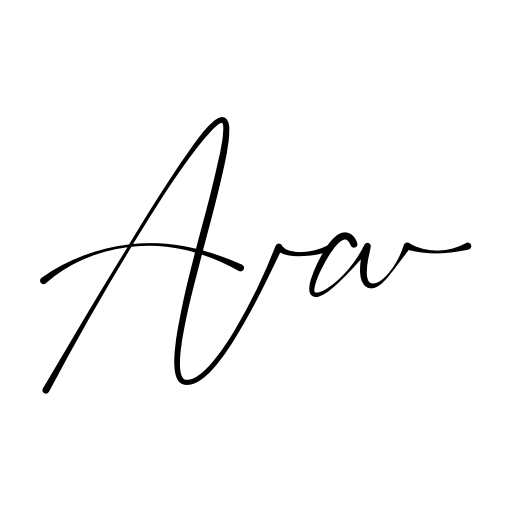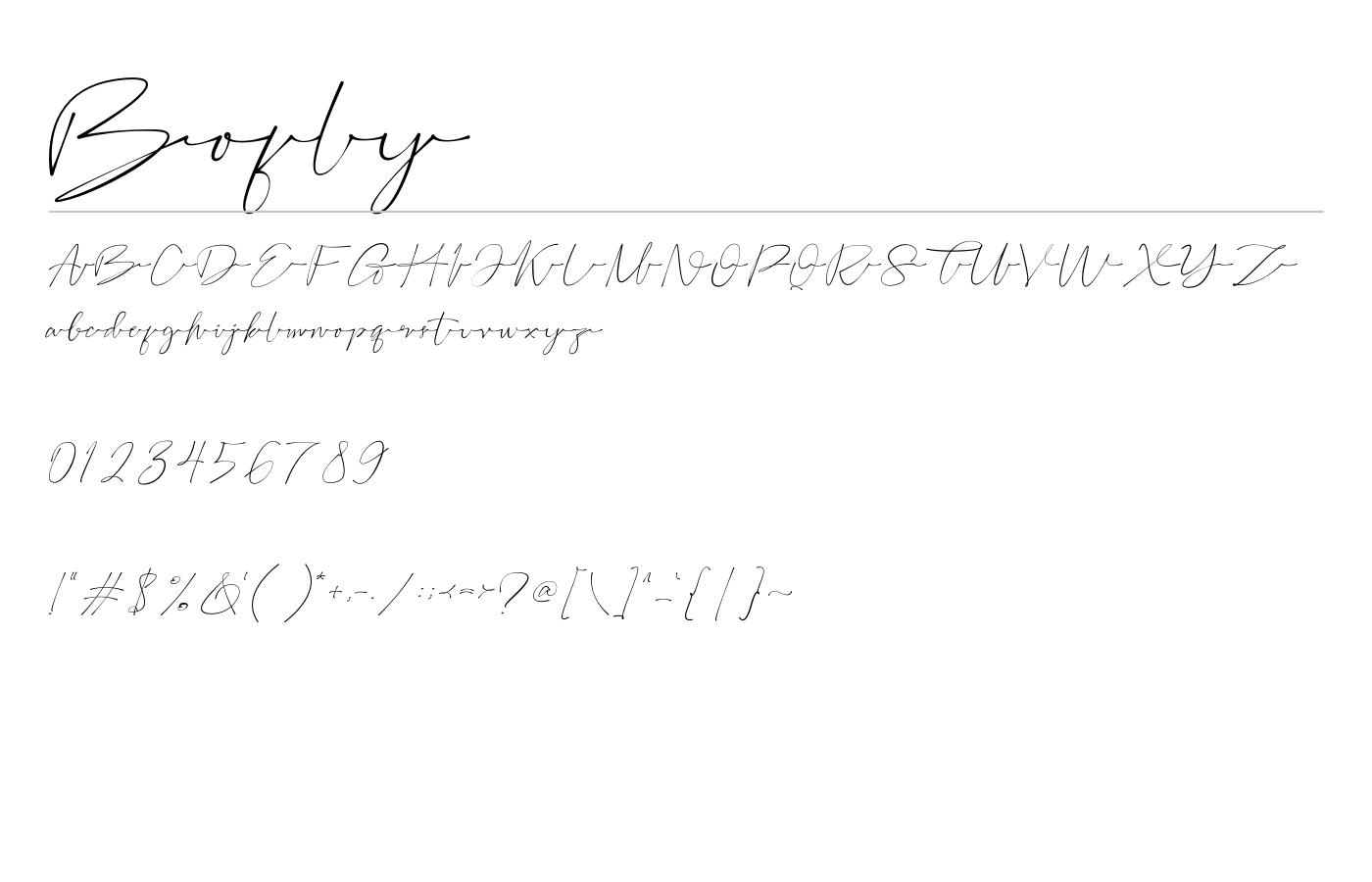
Bofly is an elegant and delicate script font with thin, flowing lines that give it a graceful and personal handwritten feel. Its light weight and airy letterforms make it perfect for stylish branding, invitations, and logos where a refined, modern touch is desired. This font works best for decorative display use rather than body text, adding sophistication and charm to creative projects.
Bofly Font